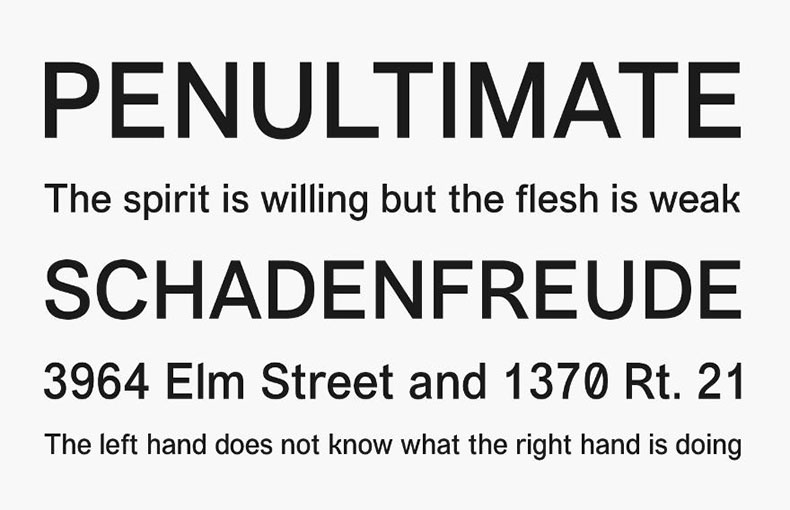
Vremena Grotesk Font is a display sans-serif typeface designed by Roman Gornitsky. It works well for logos, branding, body text, and headlines. Additionally suitable for websites and apps.
This font family offers a range of eight weights, from the light and elegant Book to the bold and powerful ExtraBold.
Even at small sizes or with low resolutions, well-defined letterforms guarantee the best possible readability. Because of this, it is perfect for both print and digital applications.
All things considered, Vremena Grotesk is a great option for designers searching for a flexible and contemporary sans-serif typeface.
You may make book covers, book paragraphs, printing on greeting cards, product design, product packaging, newspapers, documents, paragraphs, web design, product packaging, logos, book layouts, album art, news headlines, and many other fantastic things with the aid of this wonderful font.
It provides a variety of possibilities for achieving a polished and professional look in any design project thanks to its range of weights and styles.
The font has come with eight weights including Book, Regular, and Medium. Each weight has 345 glyphs along with 2048 units per em.
What is Vremena Grotesk Font?
A typeface or font called Vremena Grotesk was created for visual communication. It is well-regarded for looking modern, simple, and straightforward.
Where can I use Vremena Grotesk?
This typeface can be used in various design tasks, such as websites, posters, brochures, presentations, etc. It can be used for both print and digital media and is adaptable.